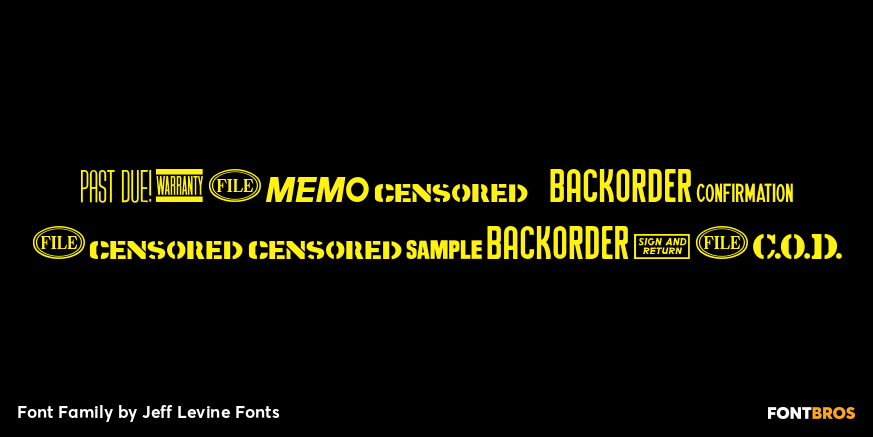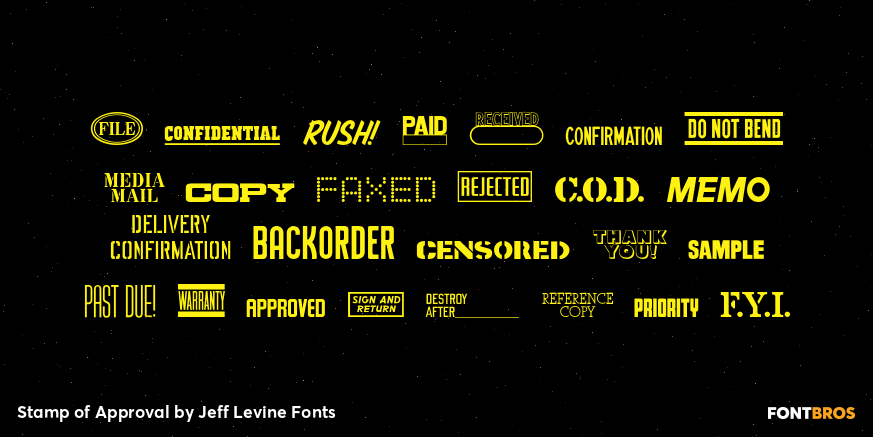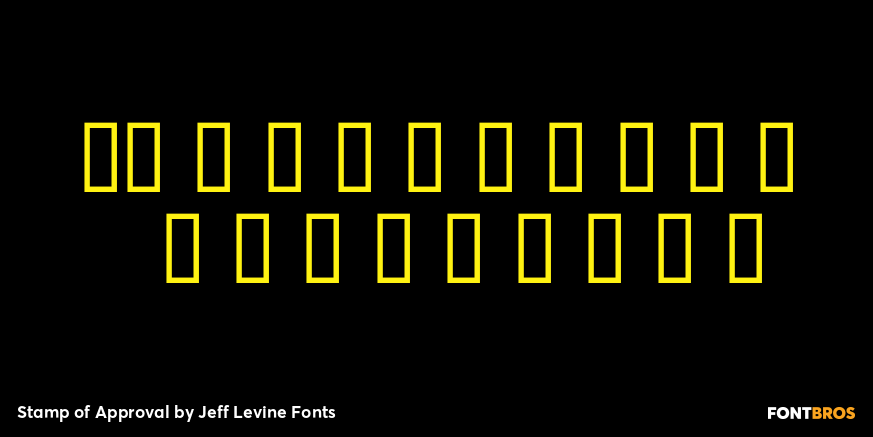
Stamp of Approval
Back in the 20th Century B.C. (Before Computers) there was what was know as a "paper" office. Workers used typewriters, correction fluid and a drawer full of rubber stamps. Jeff Levine has taken twenty-six of the common phrases found on those old office stamps and created Stamp of Approval JNL. Use these images as they are, or run them through a filter for a worn or inked-up effect. Available in True Type only.